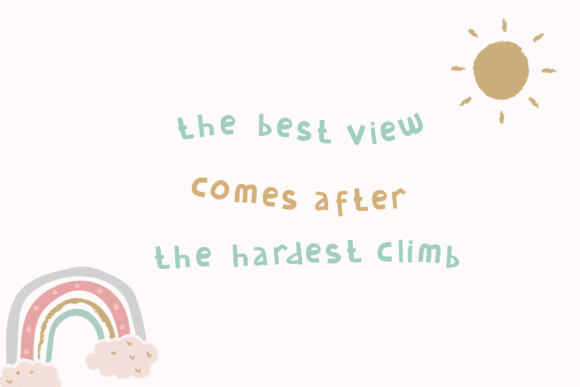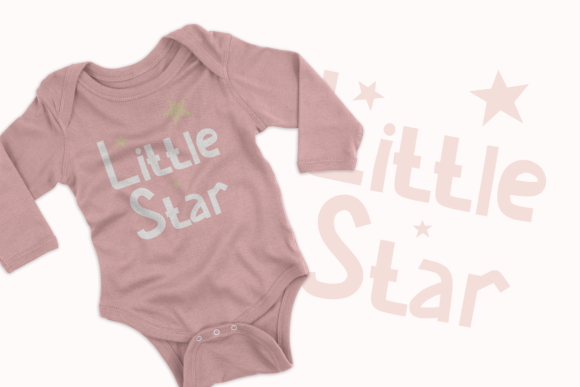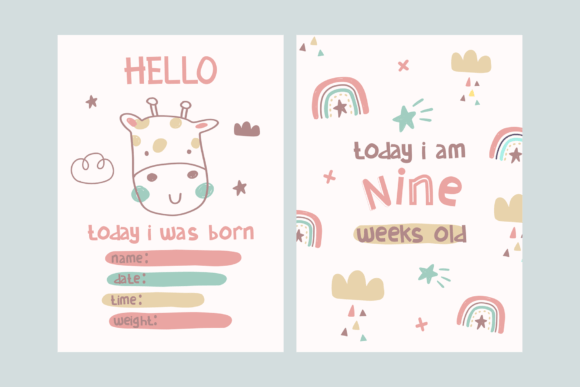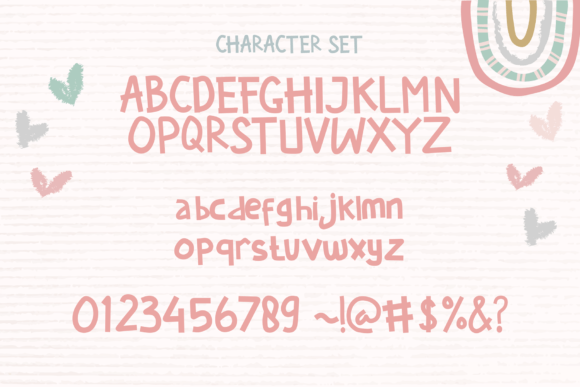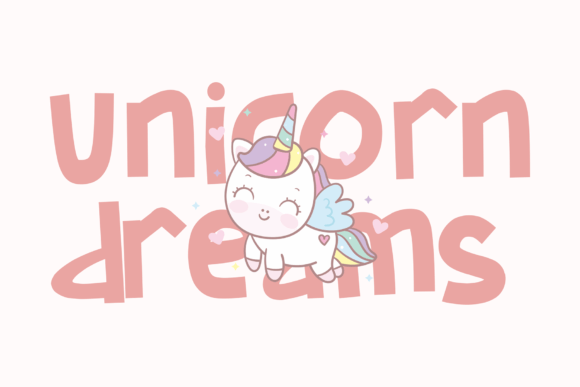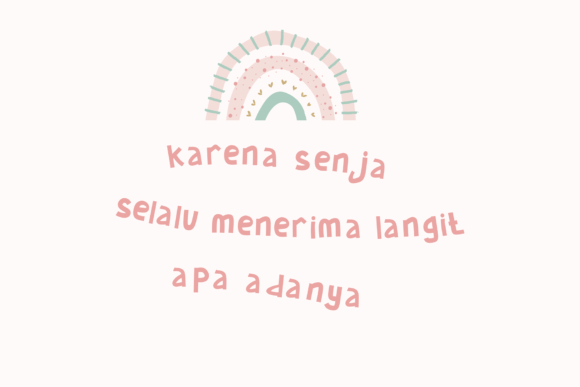
Introduction to Love Yourself Font
Love Yourself is a handwritten font with a cute and lovely theme, making it the perfect choice for a variety of design projects.
The font features a unique, hand-drawn style that adds a lovely touch to any design The letters have a playful and friendly feel, with rounded edges and a casual flow.